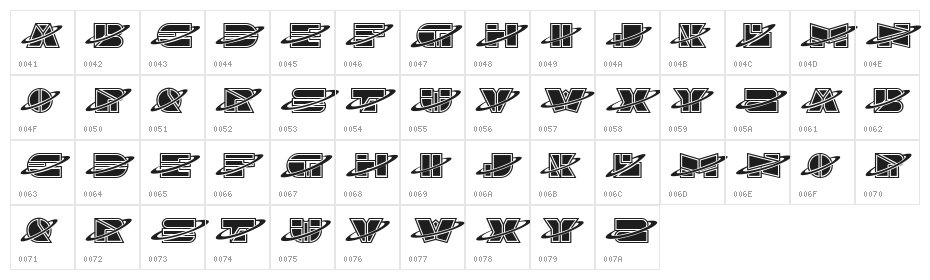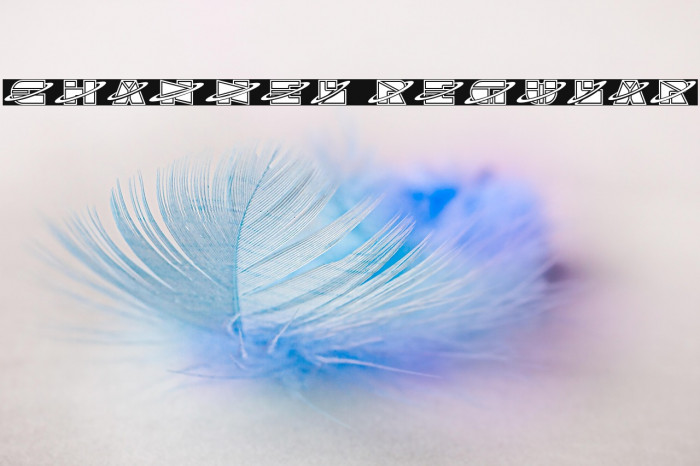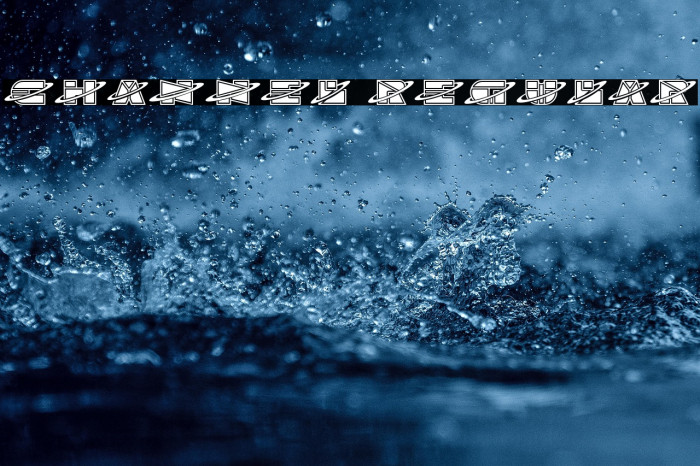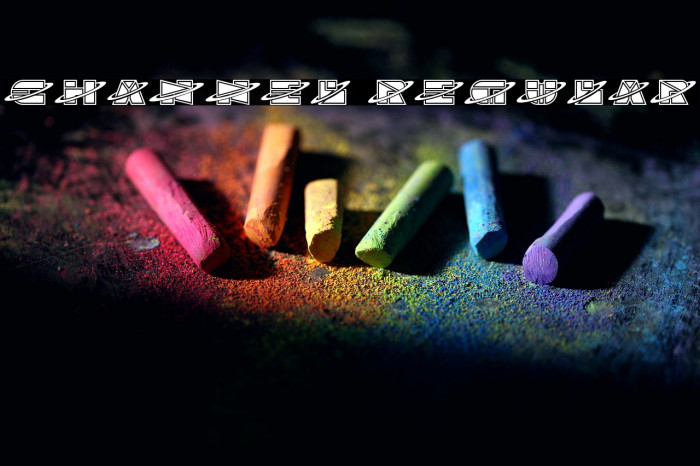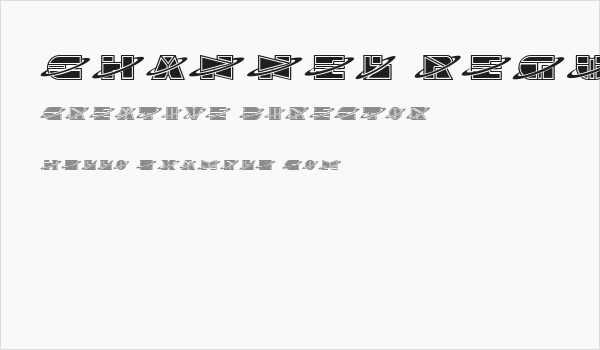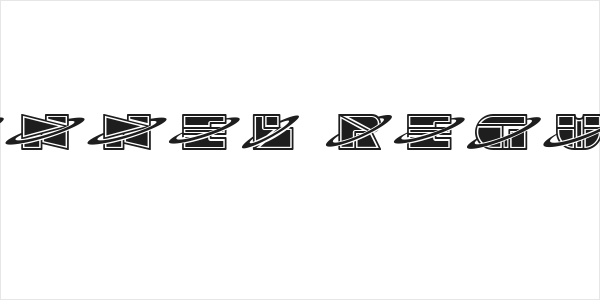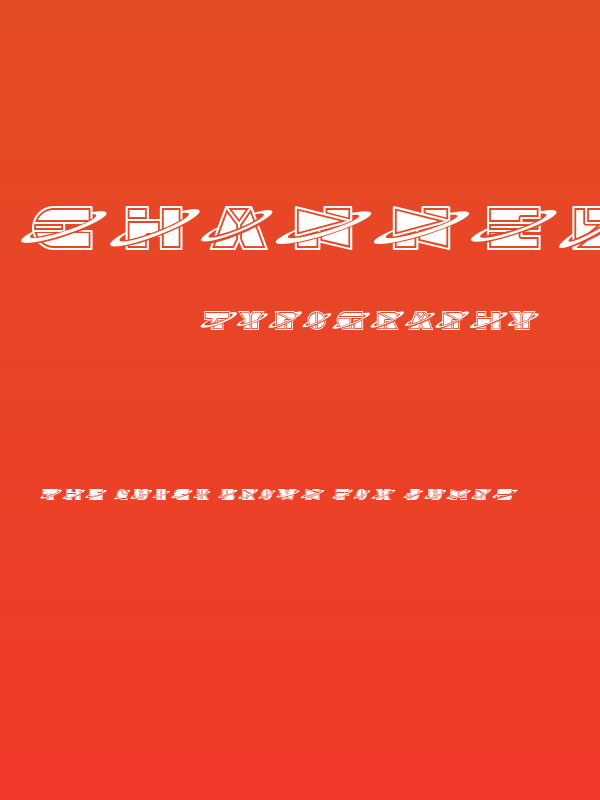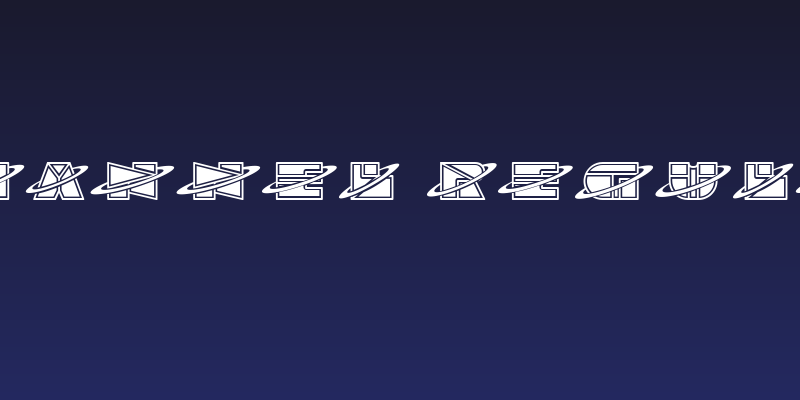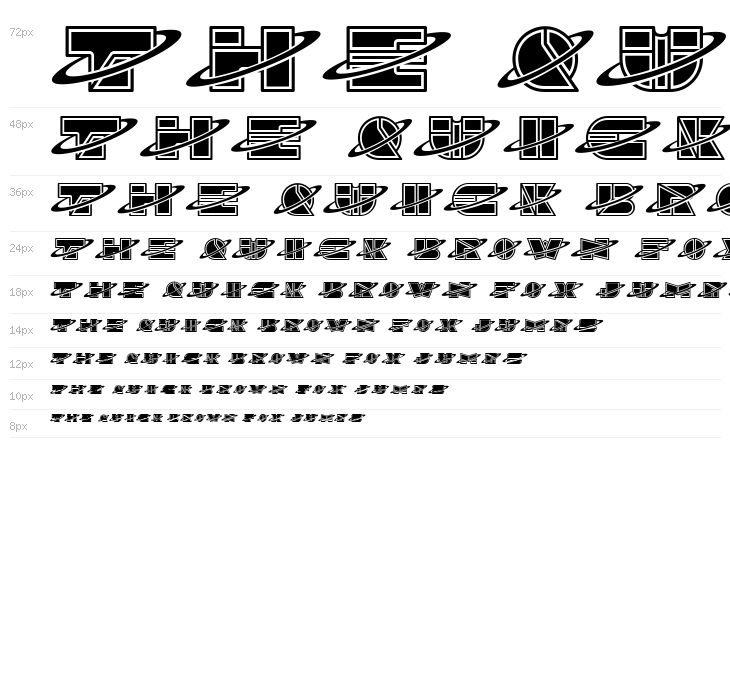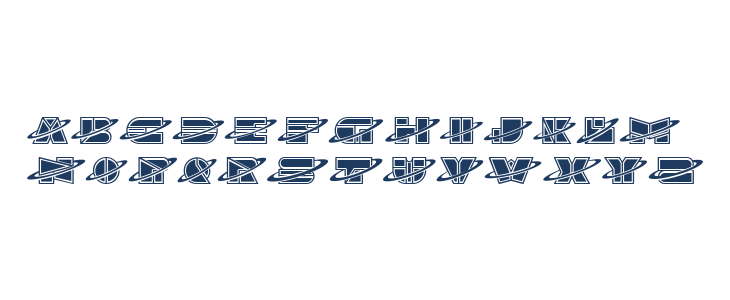
Channel Regular Font
Channel Regular Description
This font features a bold, geometric design with a futuristic and dynamic appearance. Each character is constructed with sharp angles and intersecting lines, creating a sense of movement and energy. The letters are outlined, giving them a three-dimensional effect that enhances their visual impact. This style is reminiscent of digital or sci-fi themes, making it suitable for projects that require a modern and edgy look. The font maintains consistency across uppercase and lowercase letters, as well as numbers and special characters, ensuring a cohesive appearance.
| Overall Style | Futuristic |
| Proposed Projects | Ideal for sci-fi themed posters, video game titles, tech branding, and digital media. |